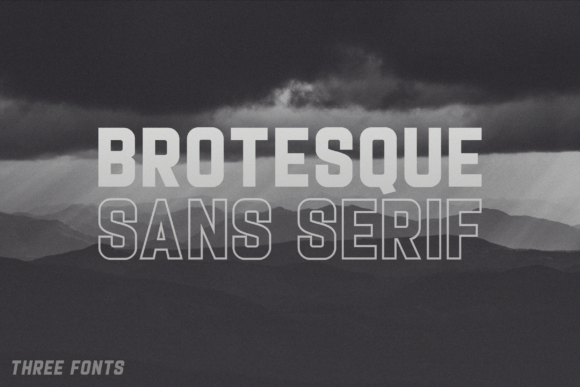
The Ultimate Guide to Brotesque Font: Elevate Your Designs with this Cool and Fun Display Font
I’ll never forget the time I was working on a magazine cover project, and I just couldn’t find the right font to capture the playful yet sophisticated vibe I was going for. That was until I stumbled upon Brotesque Font. It was love at first sight! The quirky, fun, and bold design instantly resonated with my vision, and I knew I had found the perfect fit. In this article, I’ll share with you why Brotesque Font is a game-changer for designers, crafters, and creative hobbyists alike.
What is Brotesque Font?
Brotesque Font is a cool and fun looking display font that is perfect for making a statement. It features an uppercase alphabet with numbers and symbols, making it versatile for various design projects. Whether you’re working on magazine covers, headers, invitations, book covers, logos, or brand identity, Brotesque Font is sure to elevate your designs.
- ✨ Unique and playful design that adds a touch of personality to any project
- ✅ Easy to read, even in larger sizes
- ✅ Versatile and can be used for a wide range of design projects
- ✅ Well-suited for headlines, titles, and short text
While Brotesque Font is an amazing display font, there are a few things to keep in mind:
- ⚠️ Limited to uppercase letters, numbers, and symbols, which may not be suitable for body text or longer content
- 🤔 May not be the best choice for very small text sizes, as some details may get lost
The Story Behind Brotesque Font
Brotesque Font was designed by a team of creatives who wanted to create a unique and playful display font that would add a touch of personality to any project. Inspired by vintage posters and modern design trends, Brotesque Font is a fusion of old and new, making it perfect for designers who want to create something fresh and exciting.
Q: Is Brotesque Font suitable for body text?
While Brotesque Font is a beautiful display font, it’s not recommended for body text due to its limited character set and bold design.